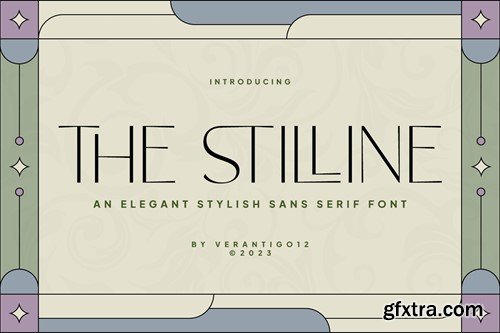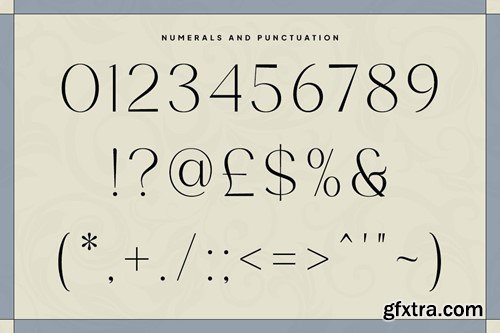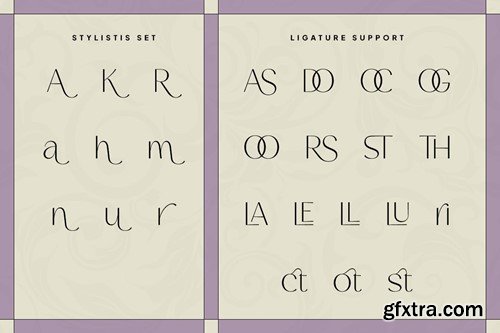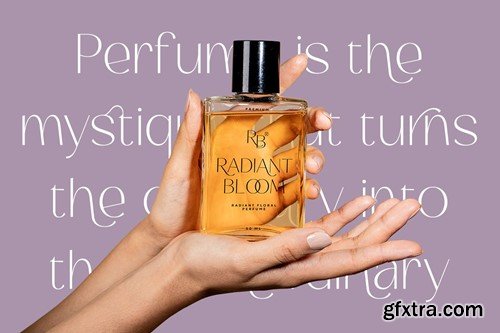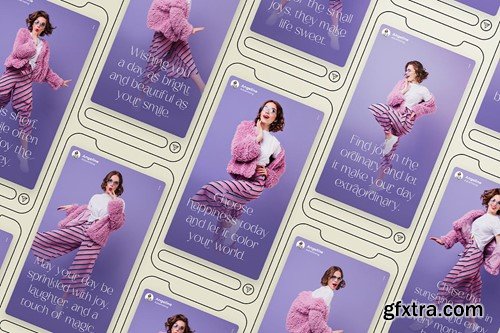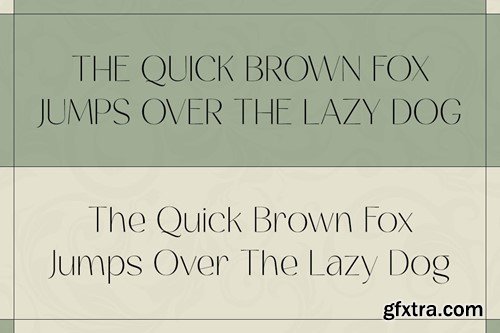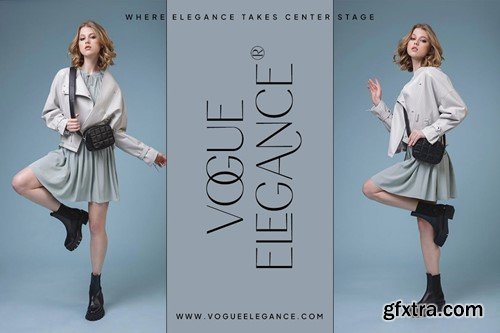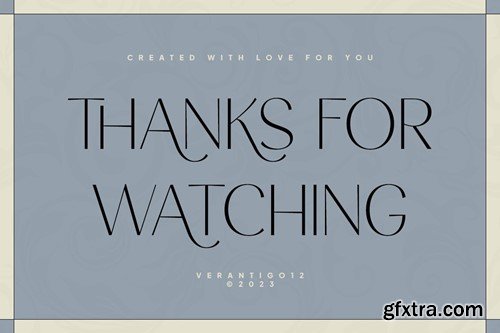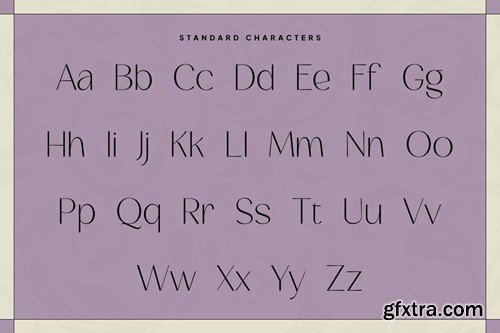
Stilline - Sans Serif Font D8F7KXA
The Stilline - Sans Serif Font
The The Stilline is inspired by famous logos. It’s simple, yet classy, and was made with precision and measured.It’s perfect for logos & branding, photography, invitations, watermarks, advertisements, product designs, stationery, wedding designs, labels, product packaging, and much more! Whats included : The Stilline OTF The Stilline TTF The Stilline WOFF Numeral and Punctuation International Language Works on PC & Mac Simple installations Accessible in the Adobe Illustrator, Adobe Photoshop, Adobe InDesign, even works on Microsoft Word. Thank you for your purchase! Hope you enjoy with our font! Best Regards,